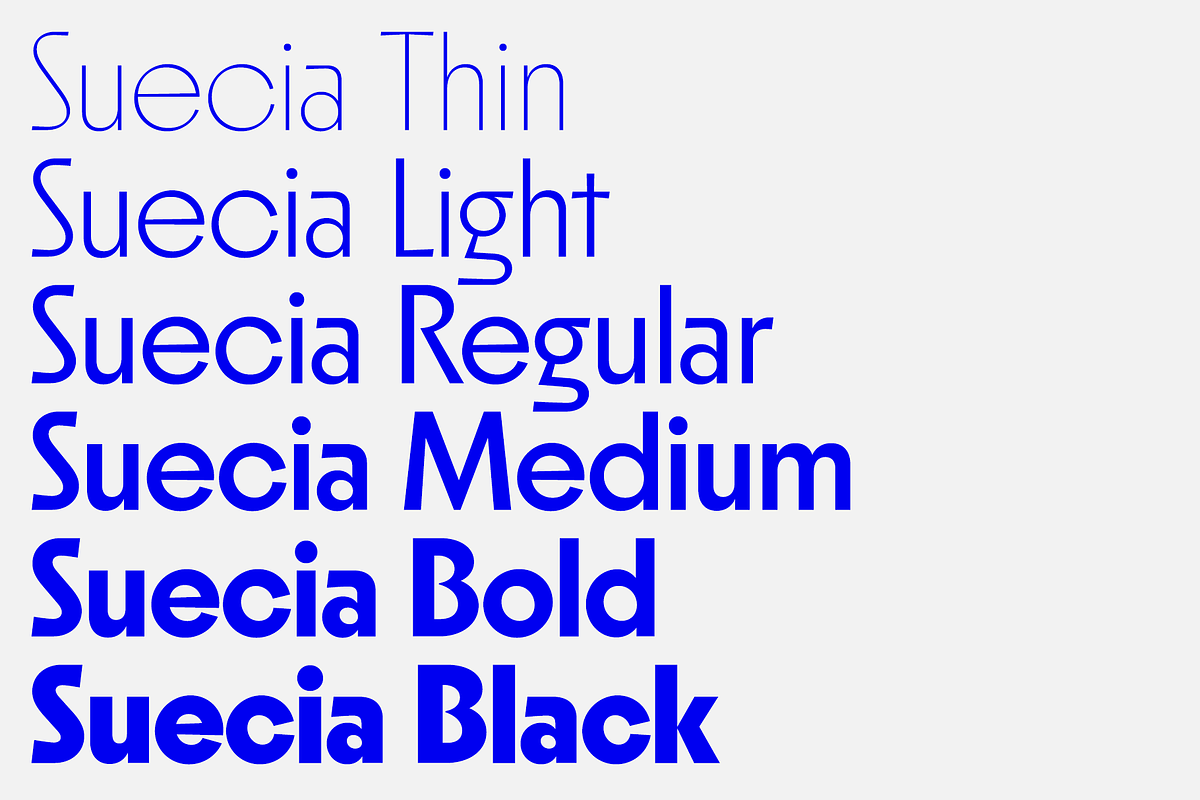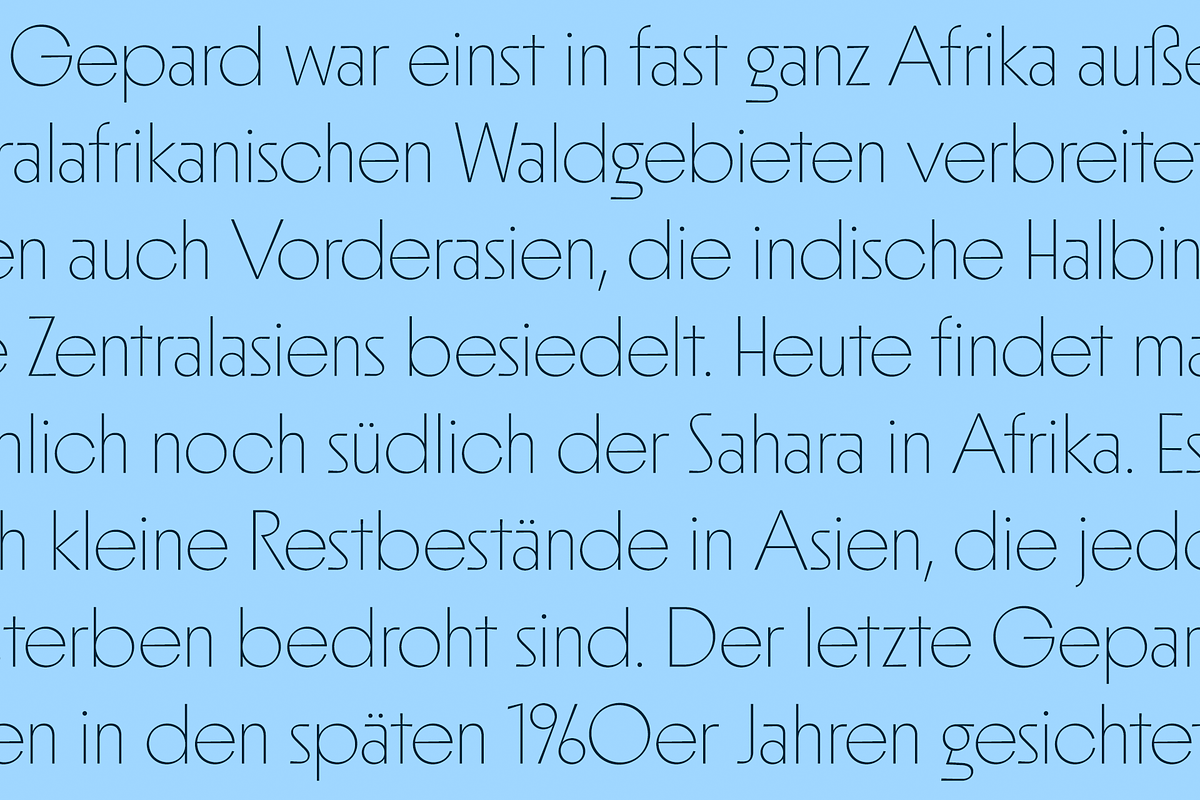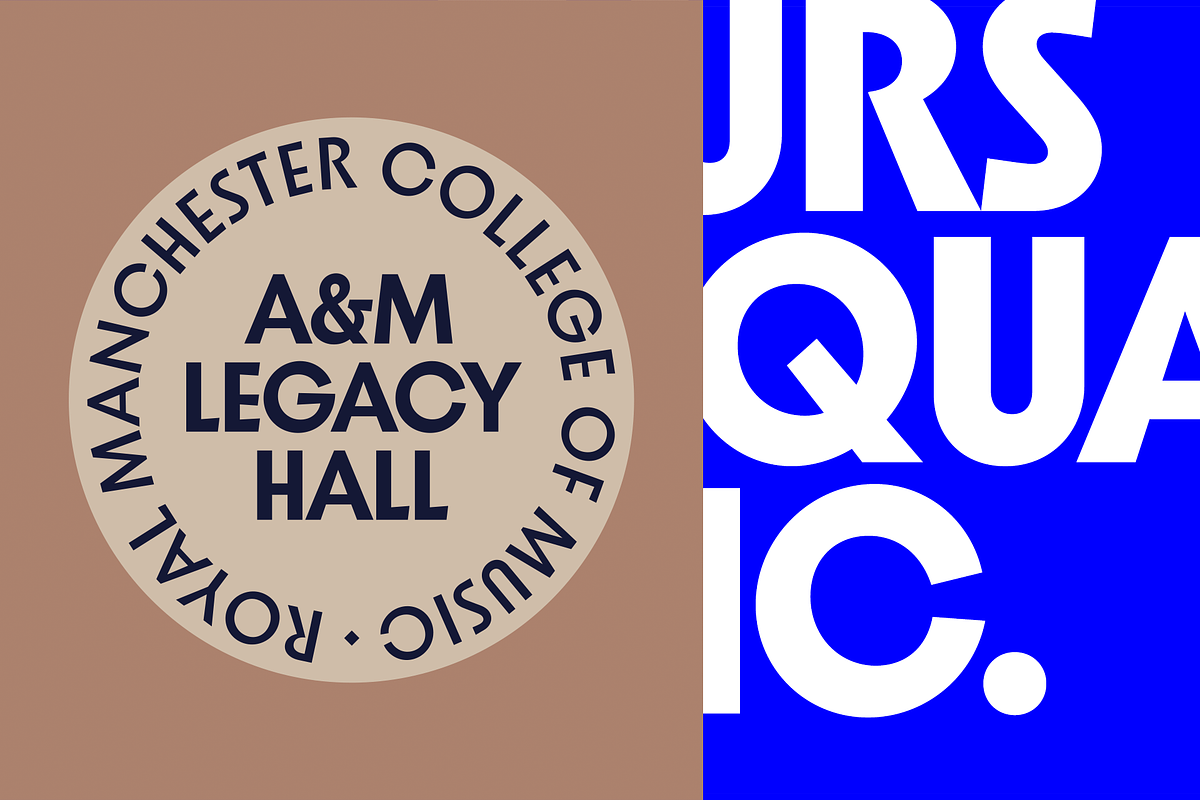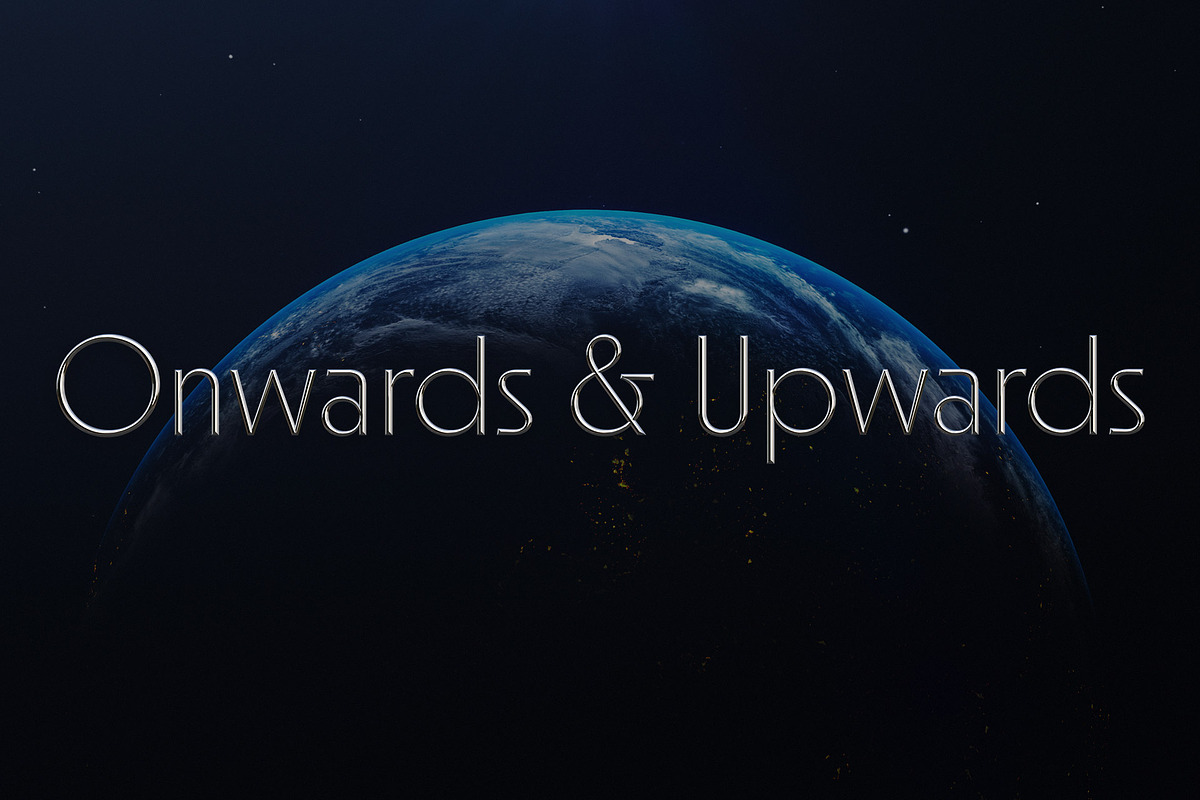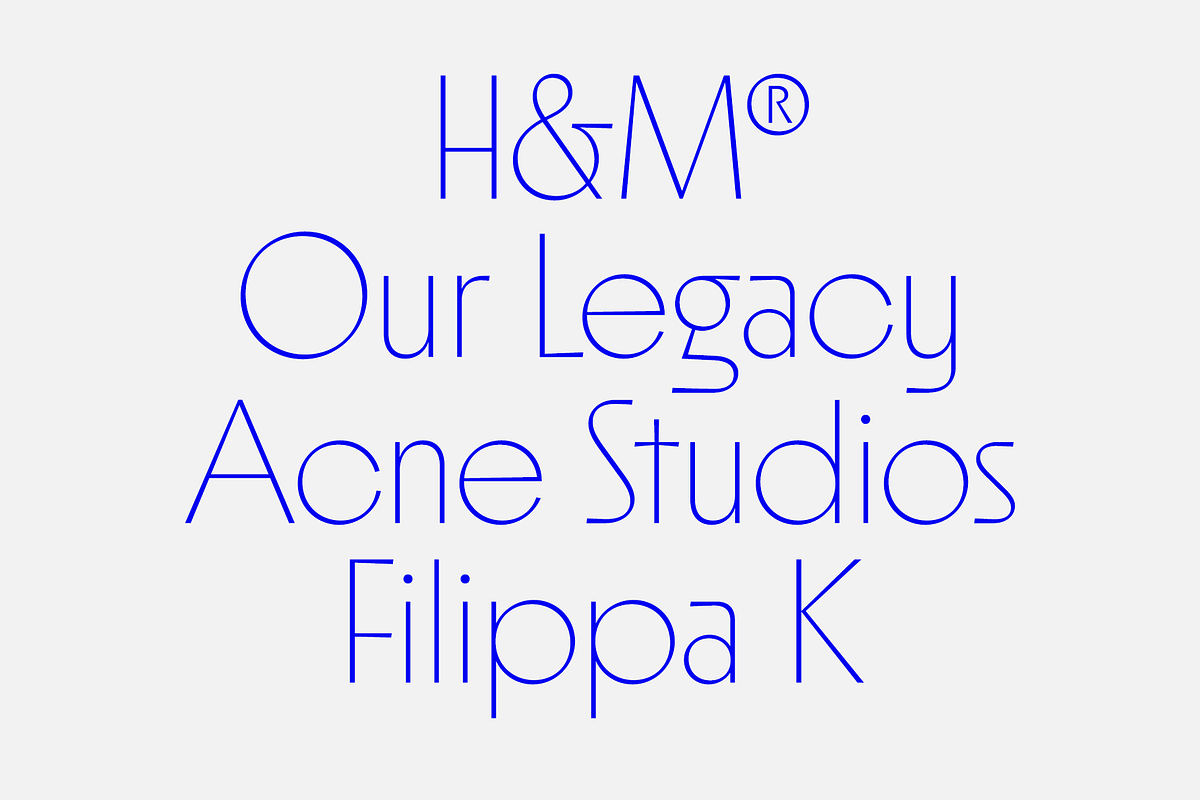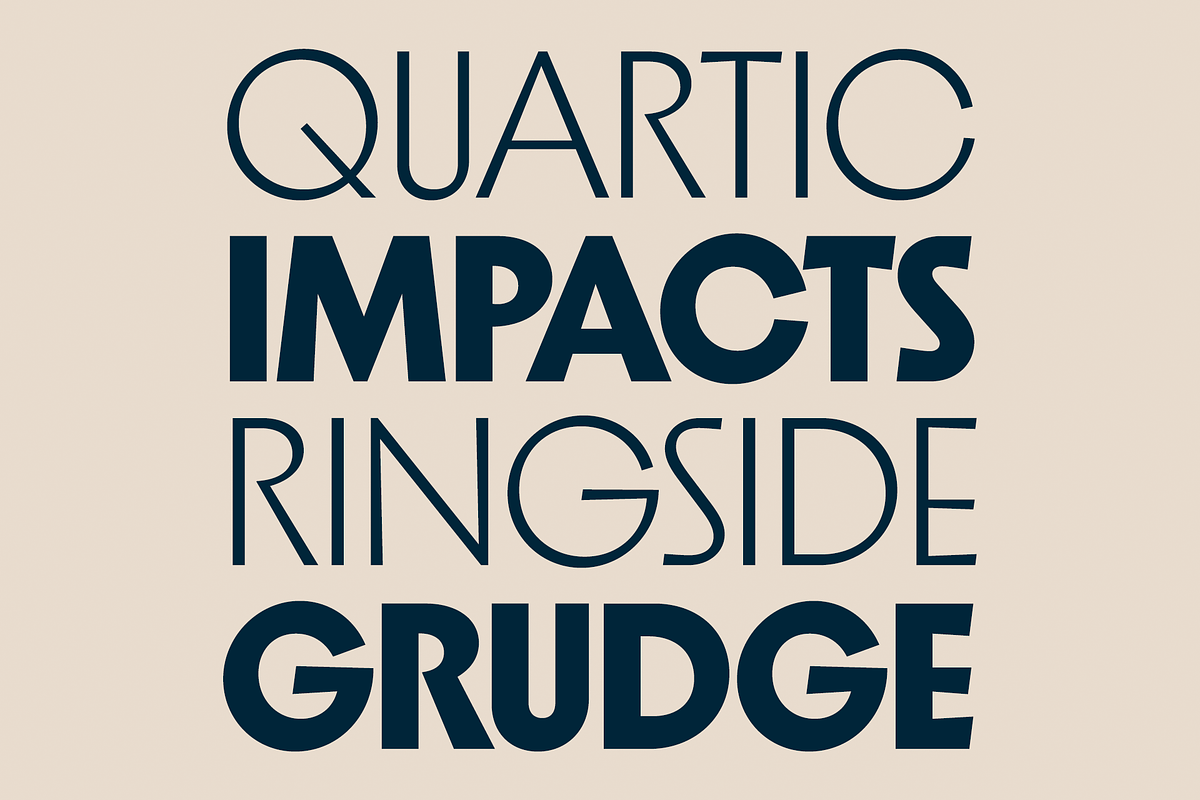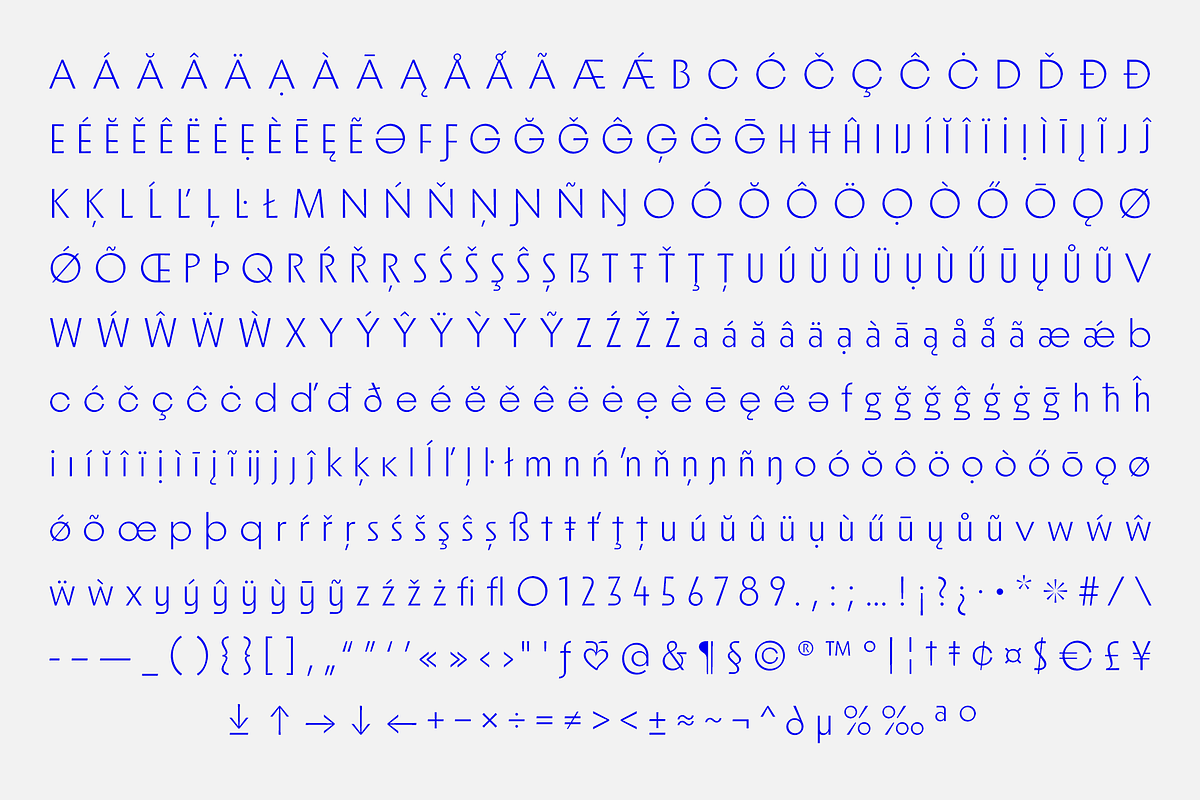
Suecia
The recipe for Suecia is quite simple; a geometric backbone with some calligraphic flair. Best suited for branding, headlines, and shorter texts. Suecia comes in 6 upright weights.